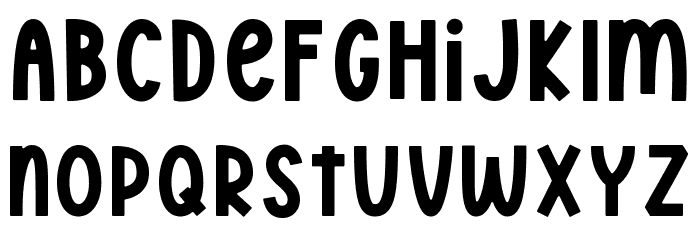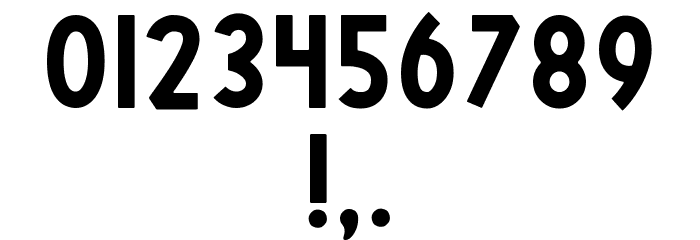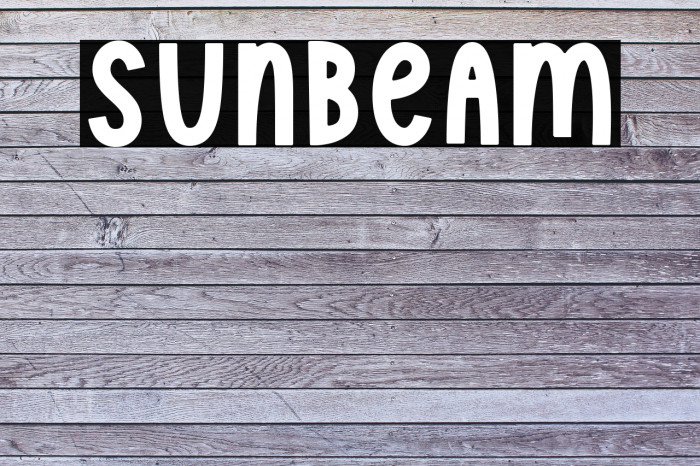
Sunbeam Font
This font features a playful and bold design with a slightly rounded appearance. The characters are thick and have a consistent weight, giving them a strong presence on the page. The uppercase letters are uniform in height, while the lowercase letters maintain a similar style with a touch of whimsy. The numbers are clear and easy to read, matching the boldness of the letters. Special characters are included, adding versatility to the font. Overall, this font exudes a fun and approachable vibe, making it suitable for a variety of creative projects.
A playful, bold font with rounded characters and a strong presence.
- Proposed Projects: Ideal for children's books, playful branding, posters, and greeting cards.
- Overall Style: Playful